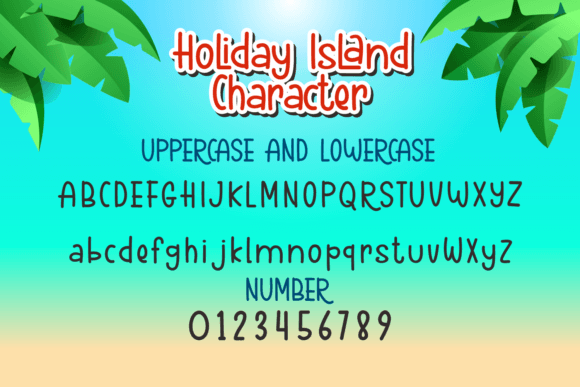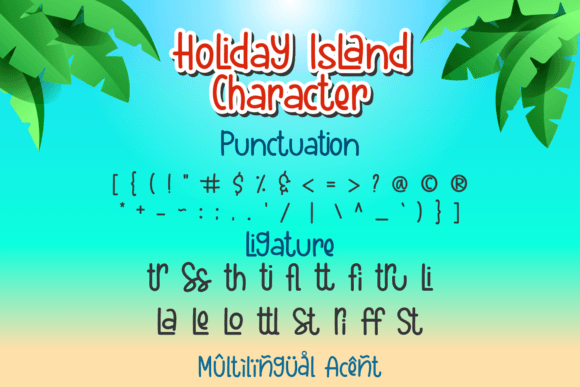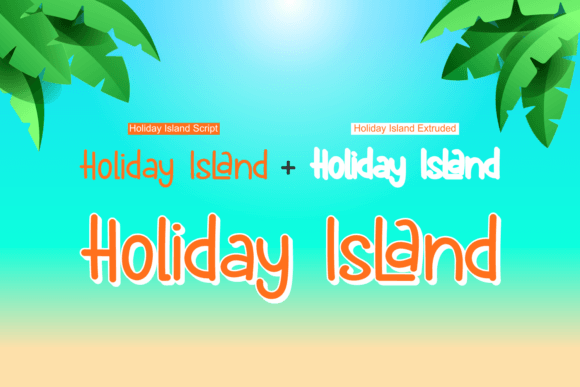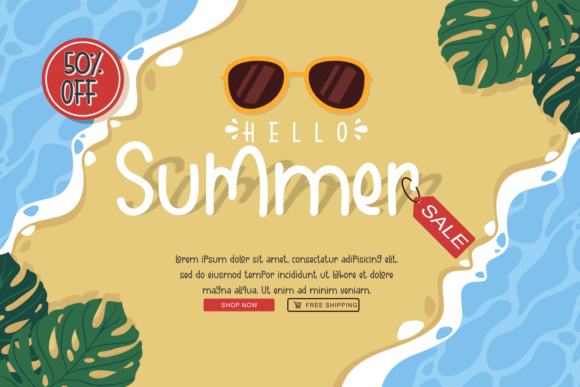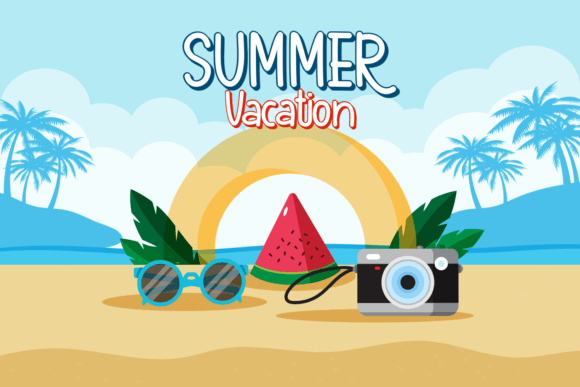
Discover the Perfect Tropical Getaway for Your Designs
Have you ever stared at a blank canvas, feeling stuck and unsure of where to begin? You’ve got a vision, but it’s just out of reach, like a palm tree swaying in the breeze on a remote island. That’s when you remember the magic of typography – the perfect font can transport your design to a world of endless possibility.
Enter the Holiday Island Font, a charming and informal handwritten font that’s sure to capture the essence of your creative vision. With its natural and unique style, this font is the perfect companion for designers looking to add a touch of whimsy and personality to their projects. Whether you’re designing a summer brochure, a beach-themed website, or a playful social media campaign, the Holiday Island Font is the perfect anchor for your creative journey.
Holiday Island Font Key Features
- Font Style: Script, Casual, and Whimsical
- Font Size: 1,000 characters (including uppercase and lowercase letters, numbers, and punctuation)
- Unique Characteristics: Hand-drawn illustrations, intricate details, and a playful feel, making it perfect for creating a festive atmosphere
Holiday Island Font Review
Overall, I found the Holiday Island Font to be a charming and whimsical choice for any project that requires a touch of tropical flair. Here are some of its standout features: ✨
- Unique and distinctive design that captures the essence of a beachy getaway
- Excellent for creating eye-catching headings and titles
- Works well for branding and packaging design
- Comes in a range of weights and styles to suit different design needs
- May not be suitable for projects that require a more formal or corporate tone
- Some characters may not display correctly in certain font sizes or resolutions
- Can be quite busy and overwhelming if used extensively throughout a design
Overall, I would say that the Holiday Island Font is a great choice for designers who want to add a playful touch to their projects. While it may not be suitable for every design scenario, it’s a great option for branding, packaging, and other projects that require a fun and whimsical feel.
For the most effective use of Holiday Island Font, consider the following tips:
- Use it for beach-themed designs, such as summer posters or vacation brochures.
- Pair it with bright, pastel colors to create a fun and playful atmosphere.
- Use it for headings or titles to add a touch of whimsy and personality to your design.
Alternative Fonts to Holiday Island Font
The Great Vibes Font is a beautiful, elegant script font that is perfect for creating a relaxed and friendly atmosphere. It is ideal for use in invitations, social media graphics, and other designs where a casual, handwritten feel is desired.
Compared to Holiday Island Font, Great Vibes Font has a more subtle, understated feel and is less ornate. It is a great choice for designers who want to add a touch of elegance without overwhelming their audience.
Carolyna Pro is a modern script font that is perfect for creating a sophisticated and luxurious feel. It is ideal for use in high-end branding, packaging, and advertising designs where a sense of elegance and refinement is desired.
Compared to Holiday Island Font, Carolyna Pro Font has a more polished, refined feel and is less playful. It is a great choice for designers who want to add a touch of sophistication to their designs.
Alex Brush is a elegant script font that is perfect for creating a warm and inviting atmosphere. It is ideal for use in branding, packaging, and advertising designs where a sense of friendliness and approachability is desired.
Compared to Holiday Island Font, Alex Brush Font has a more refined, polished feel and is less playful. It is a great choice for designers who want to add a touch of elegance to their designs without overwhelming their audience.
Dancing Script is a beautiful, elegant script font that is perfect for creating a playful and festive atmosphere. It is ideal for use in invitations, social media graphics, and other designs where a sense of fun and excitement is desired.
Q: What is the recommended font size for optimal readability with the Holiday Island Font?
For optimal readability, we recommend using font sizes between 12pt and 24pt for body text. For headings and titles, you can use font sizes between 36pt and 72pt. Keep in mind that font size is just one factor that affects readability, and you should also consider line spacing, font style, and color contrast.